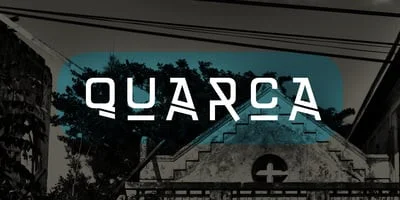
Quarca Font
What makes Quarca Font exciting is its crystalline character that perfectly captures the essence of mineral clarity and spiritual illumination. The font features faceted letterforms with geometric precision that mirror the angular beauty and natural structure of quartz crystals. Its transparent design elements reflect light and energy flow, creating an atmosphere of purity and enlightenment that resonates with audiences seeking clarity and spiritual growth. The carefully crafted angles and luminous presence suggest the transformative power of natural crystals and mineral healing.
Quarca Font comes in multiple family variations including light, regular, medium, bold, and prismatic styles. Each weight maintains the distinctive crystalline character while offering different levels of visual clarity and spiritual intensity. The font family includes faceted alternates, crystal ligatures, and mineral variations that provide designers with comprehensive options for creating truly illuminating and energetically resonant typographic compositions.